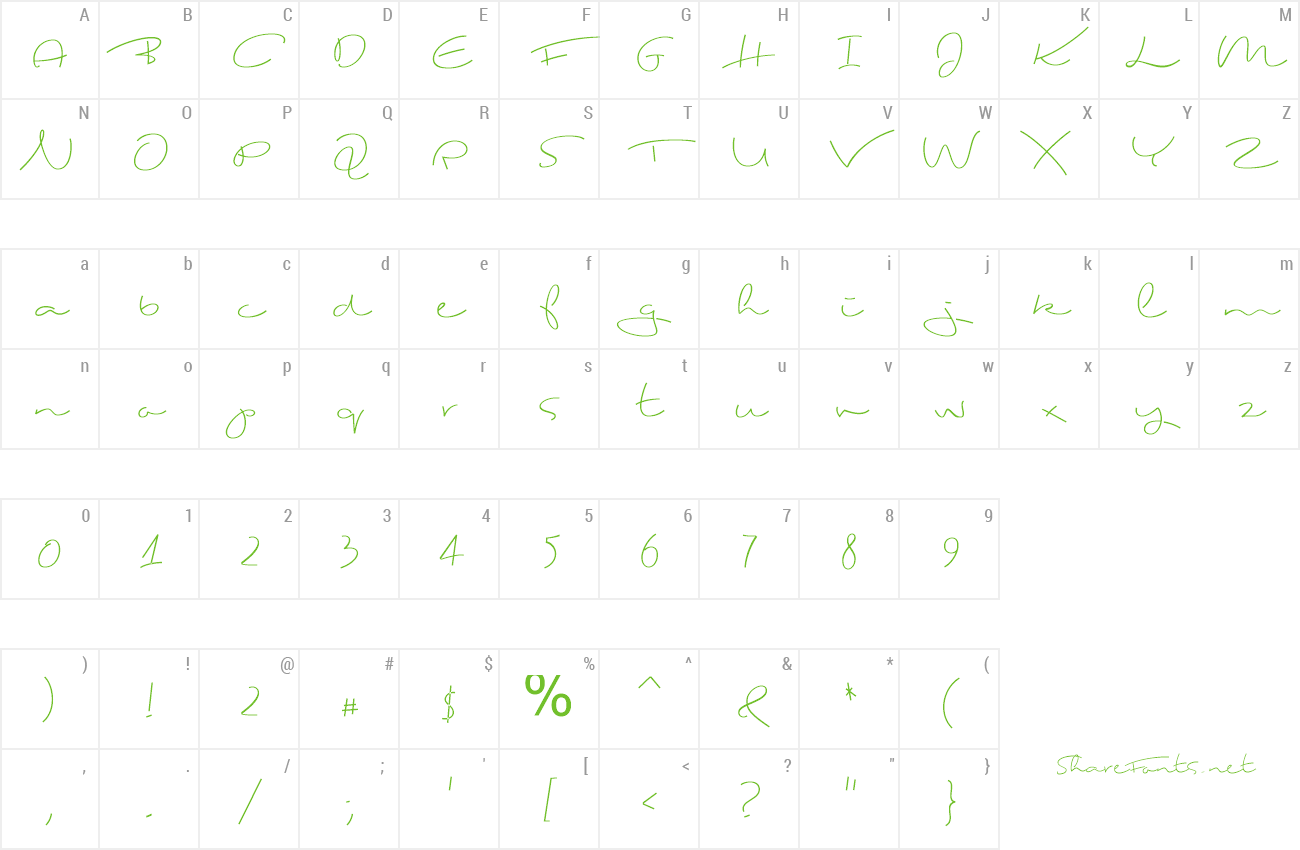
Ting Tong Font
Ting Tong Font - Web ting tong is a made up casual playful handwriting and is a strongly modified version of a previous font of mine with the.